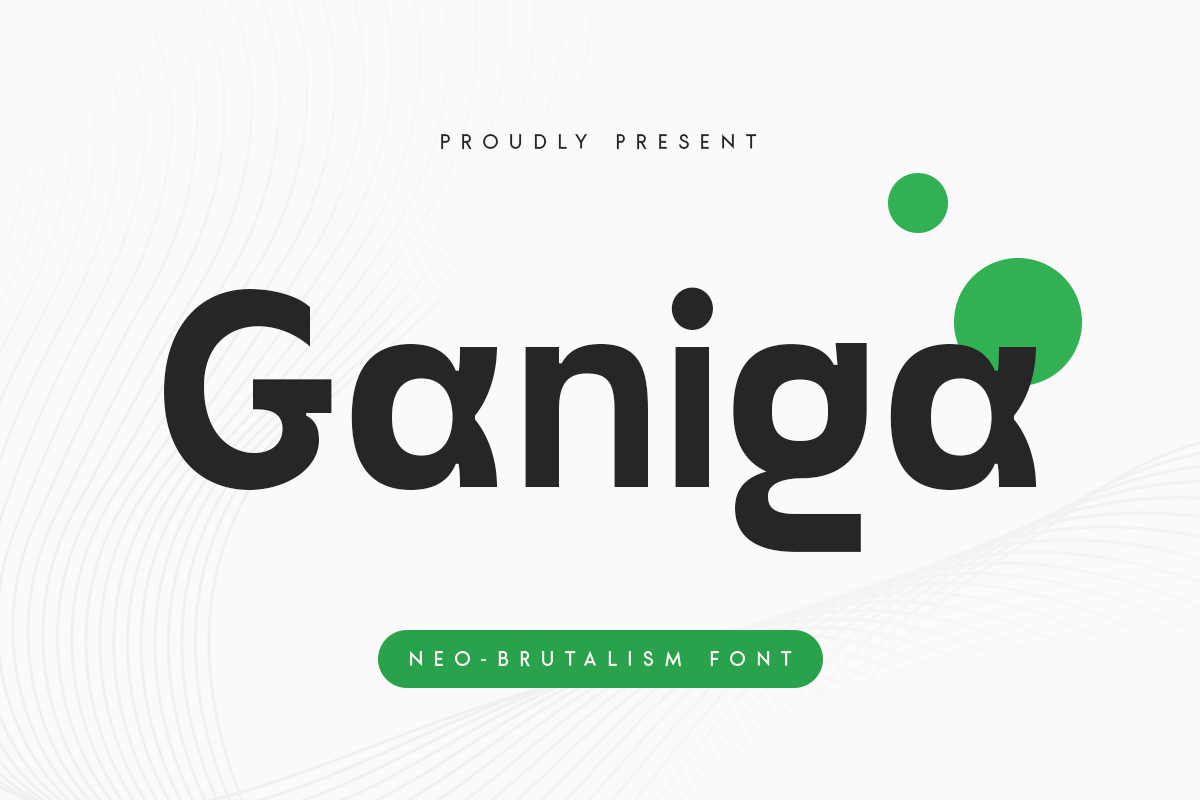
Ganiga
-Neo Brutalism Font
Ganiga
Ganiga is a Neo Brutalism Font is with a minimalist, unique, and iconic sans serif, font that you can combine to get any variations and unique shapes . It is a sans serif font with minimalist style that perfect for branding projects, logo, poster designs, social media posts, advertisements, product packaging, product designs, label, photography, watermark, invitation, stationery, and any projects, it makes with a high level of legibility.